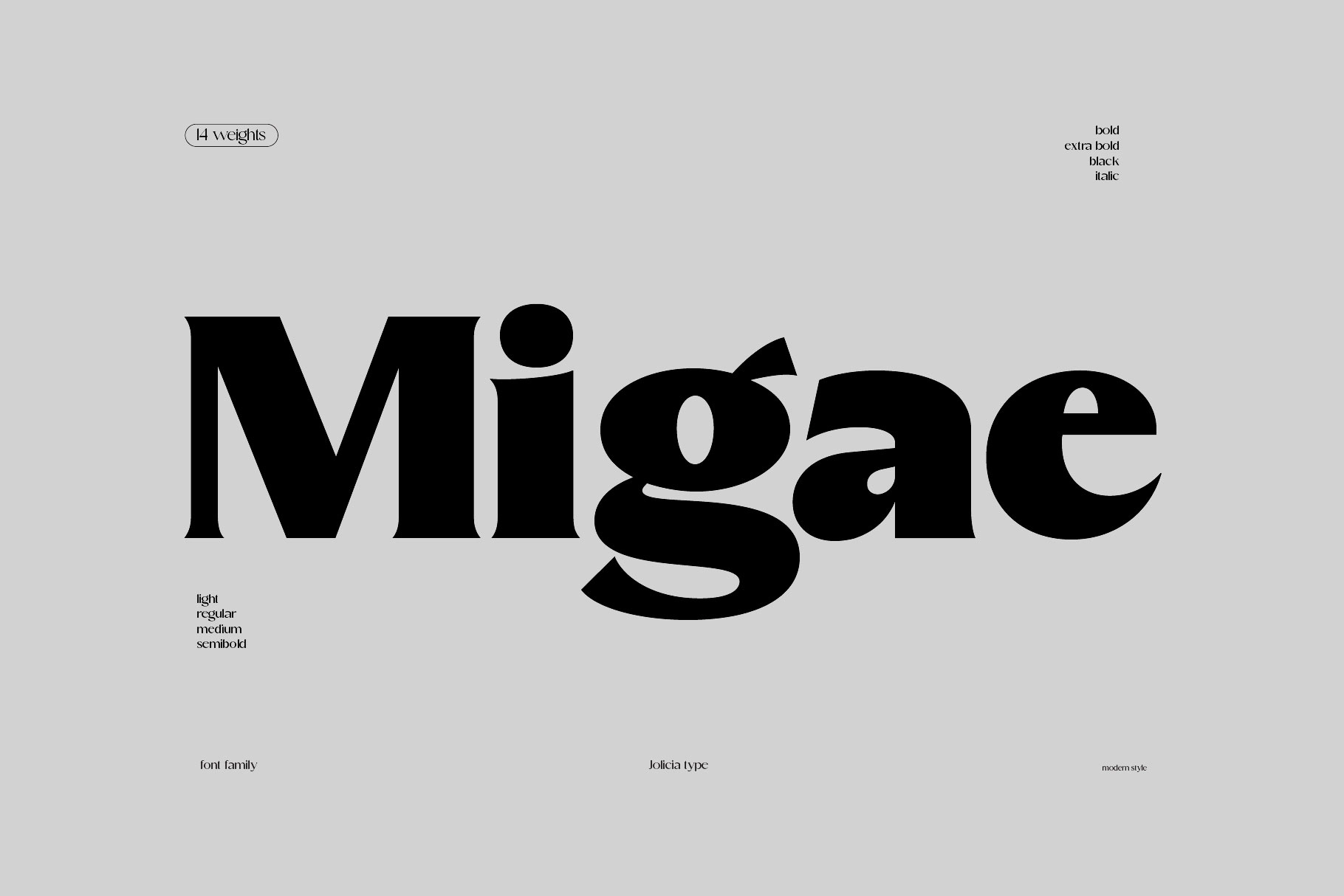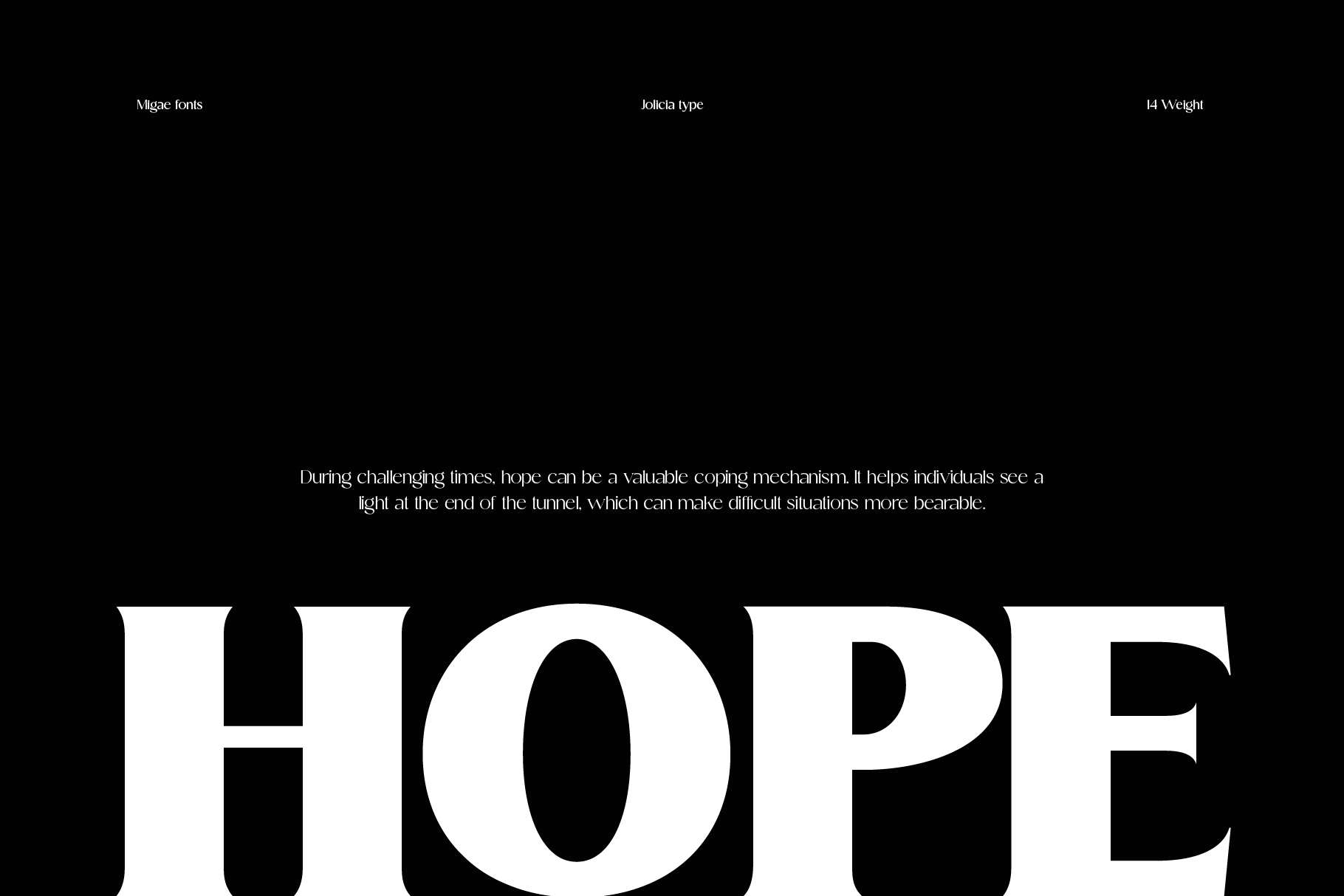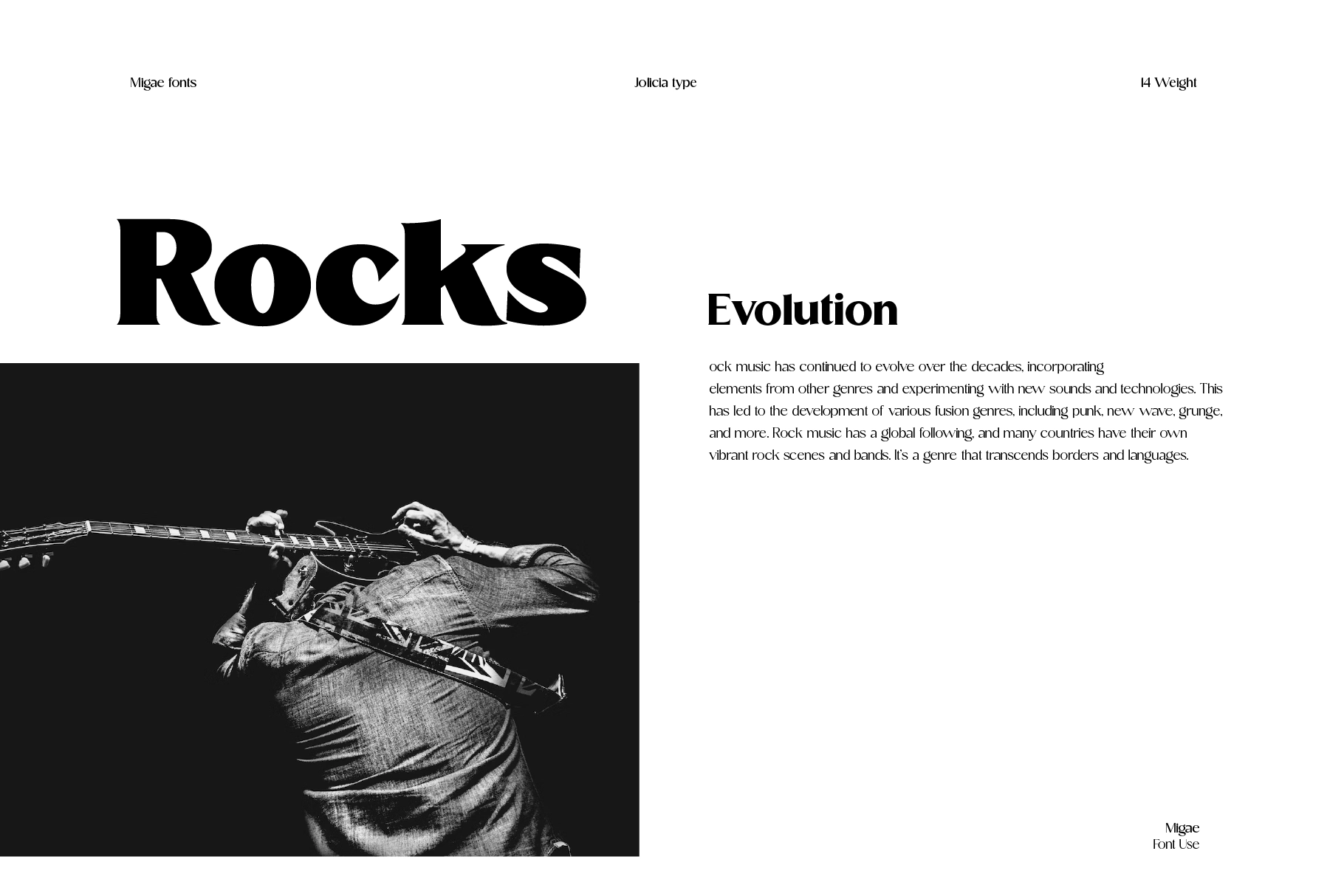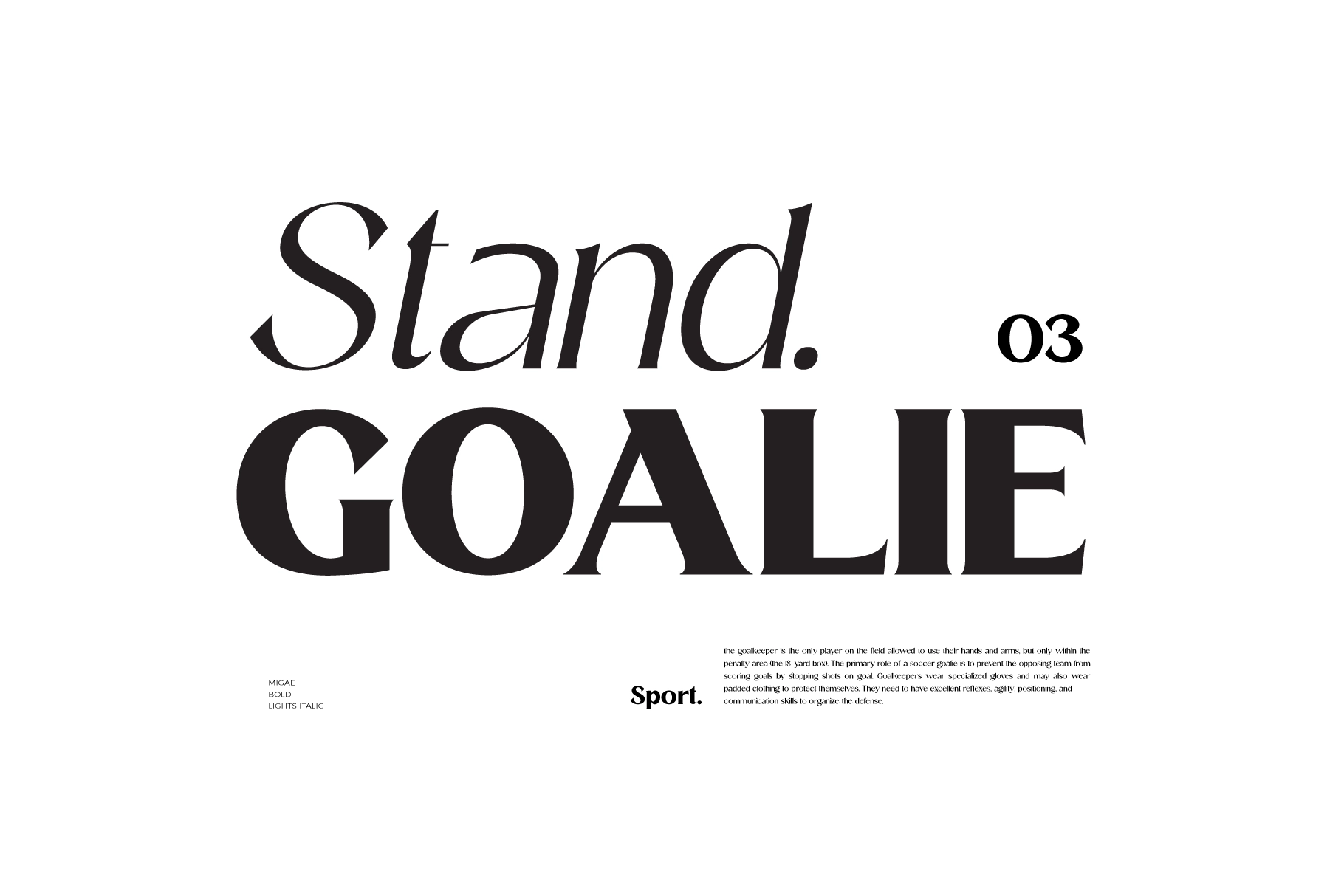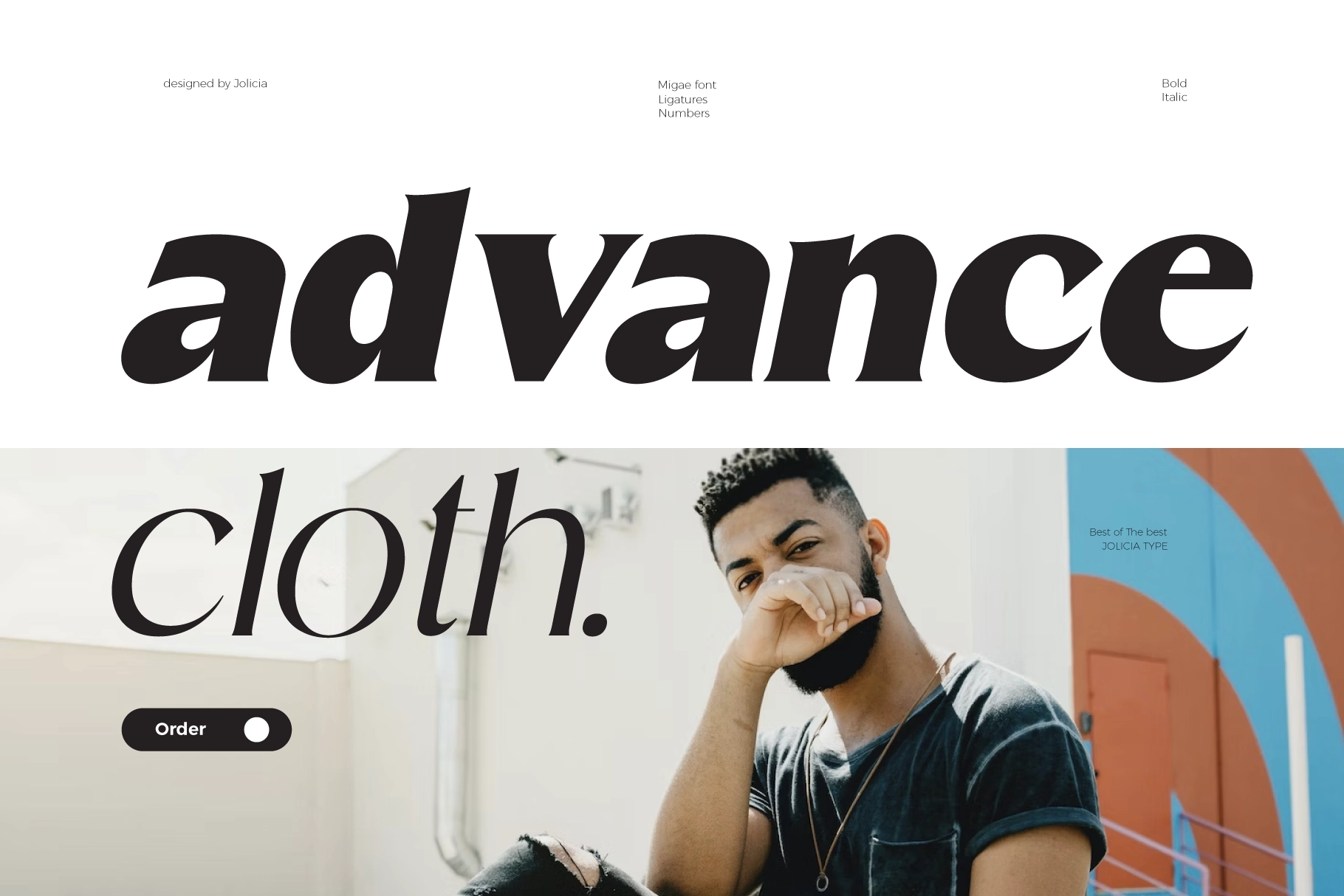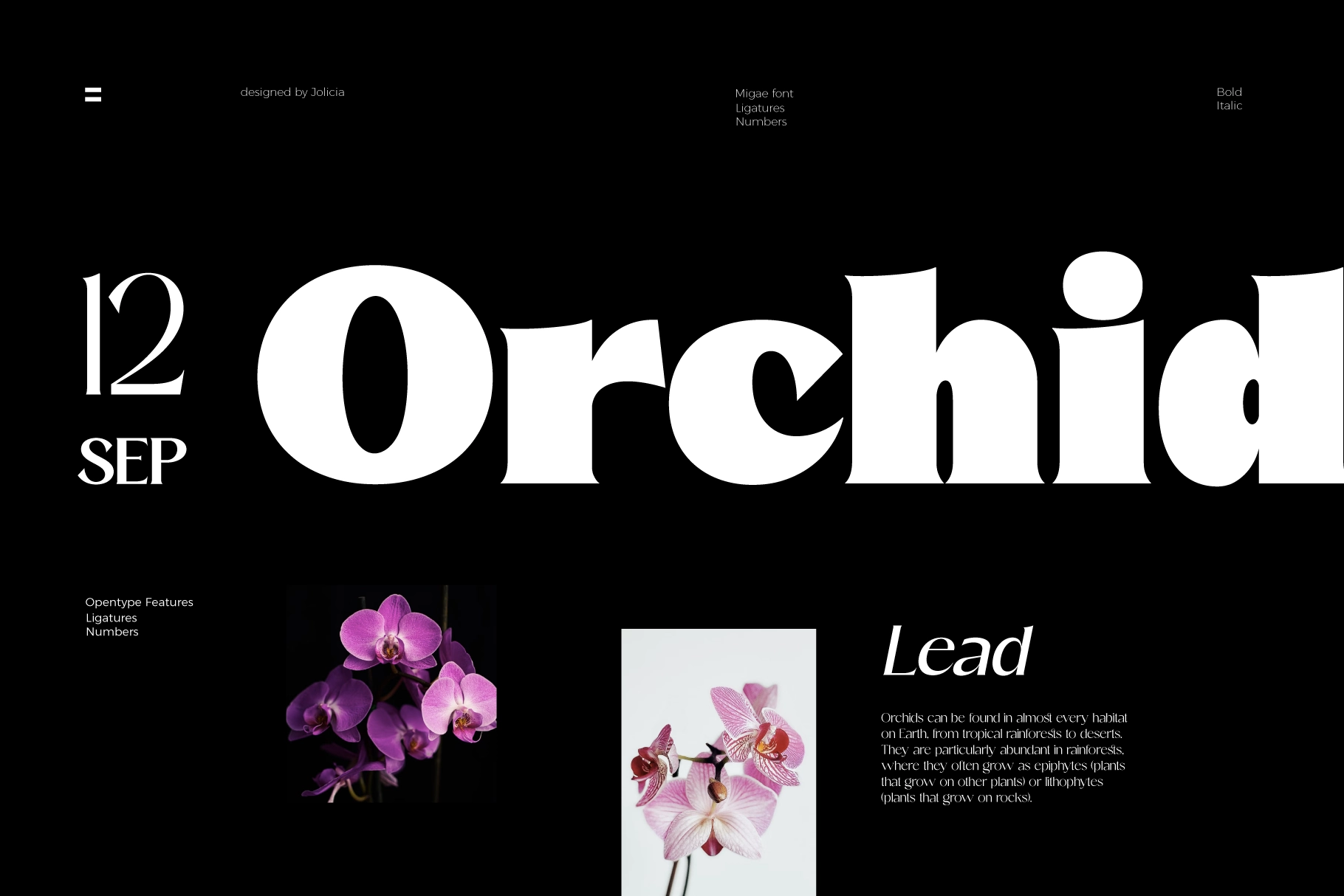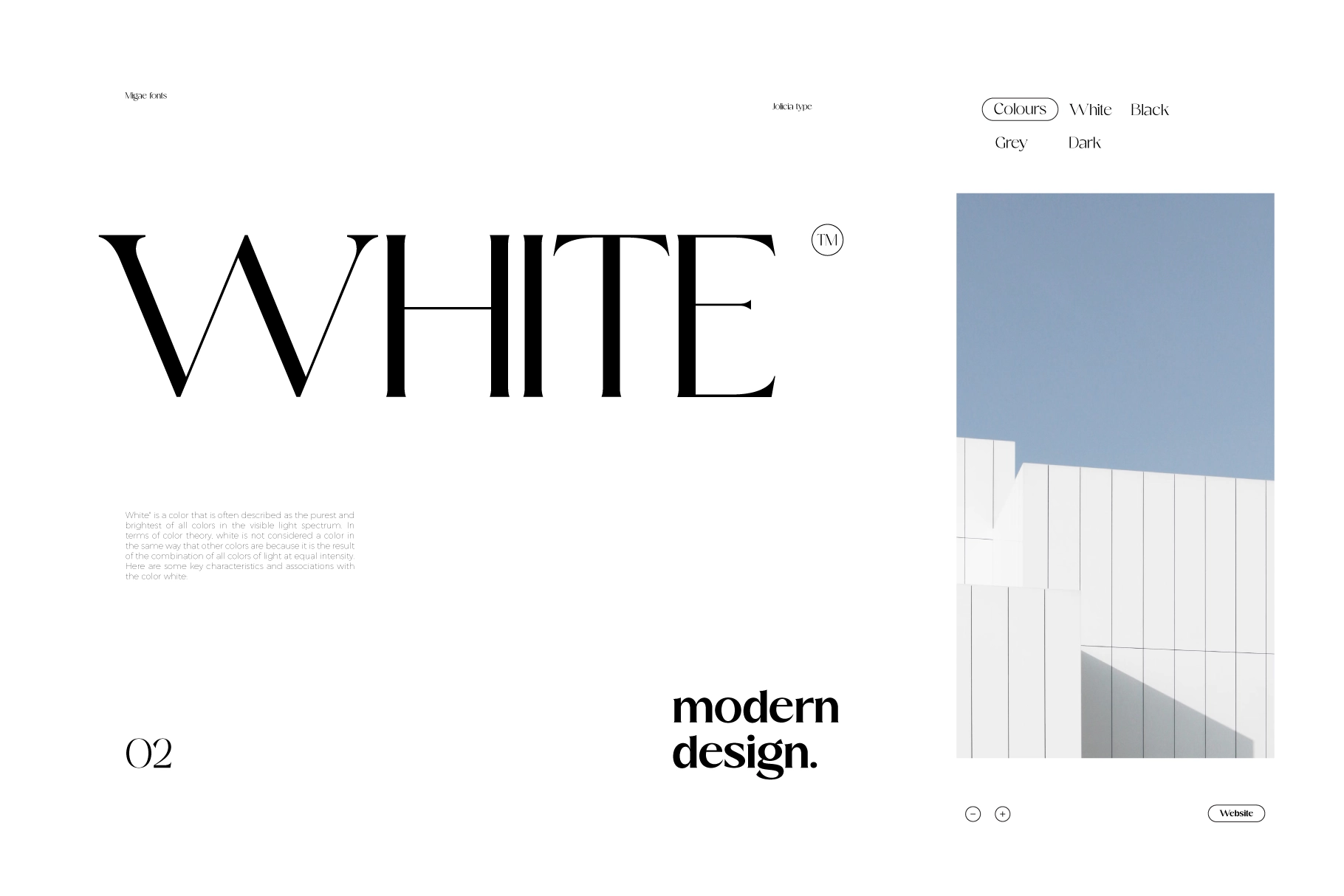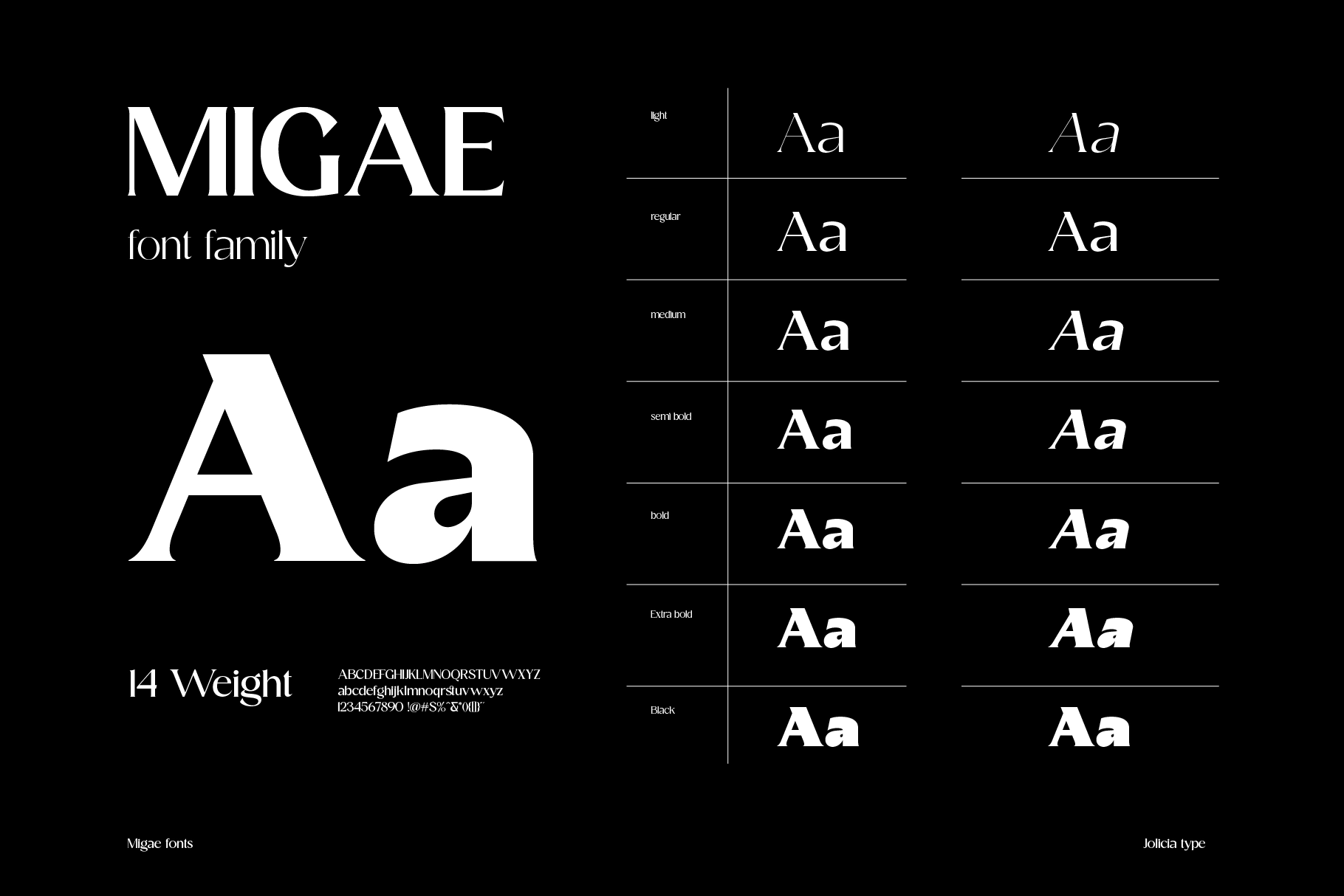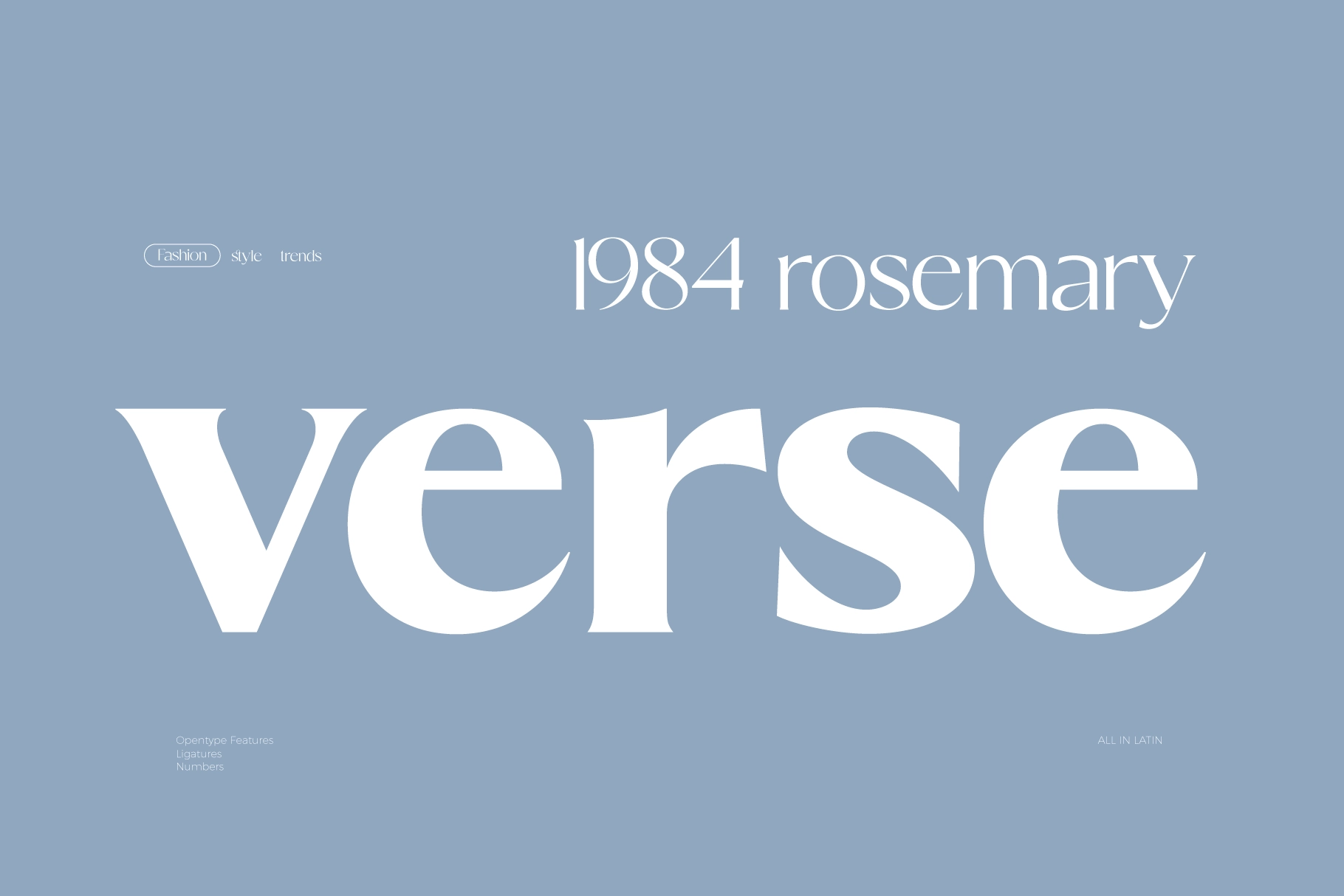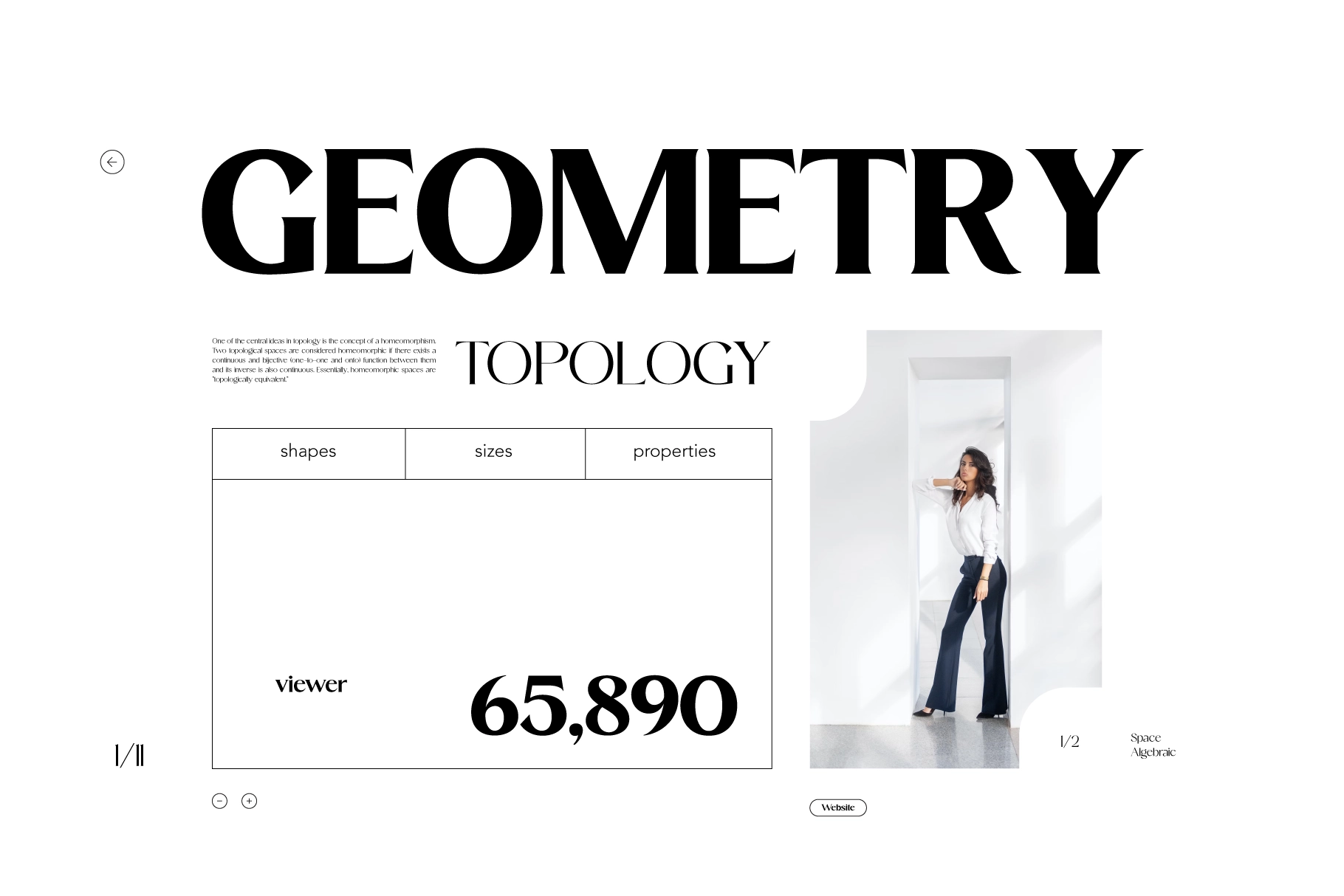
Migae – Elegant Modern Serif Display Font
Migae pairs high-contrast serif drama with sculpted curves in a way that recalls Art Deco posters, fashion editorials, and the poised grandeur of classic title pages. It suits luxury branding, magazine covers, cosmetic packaging, gallery posters, book jackets, website hero sections, and refined social campaigns where sharp presence and graceful rhythm need equal footing.
- 7 font weights from Light to Black
- Matching italic styles
- Numbers & punctuation